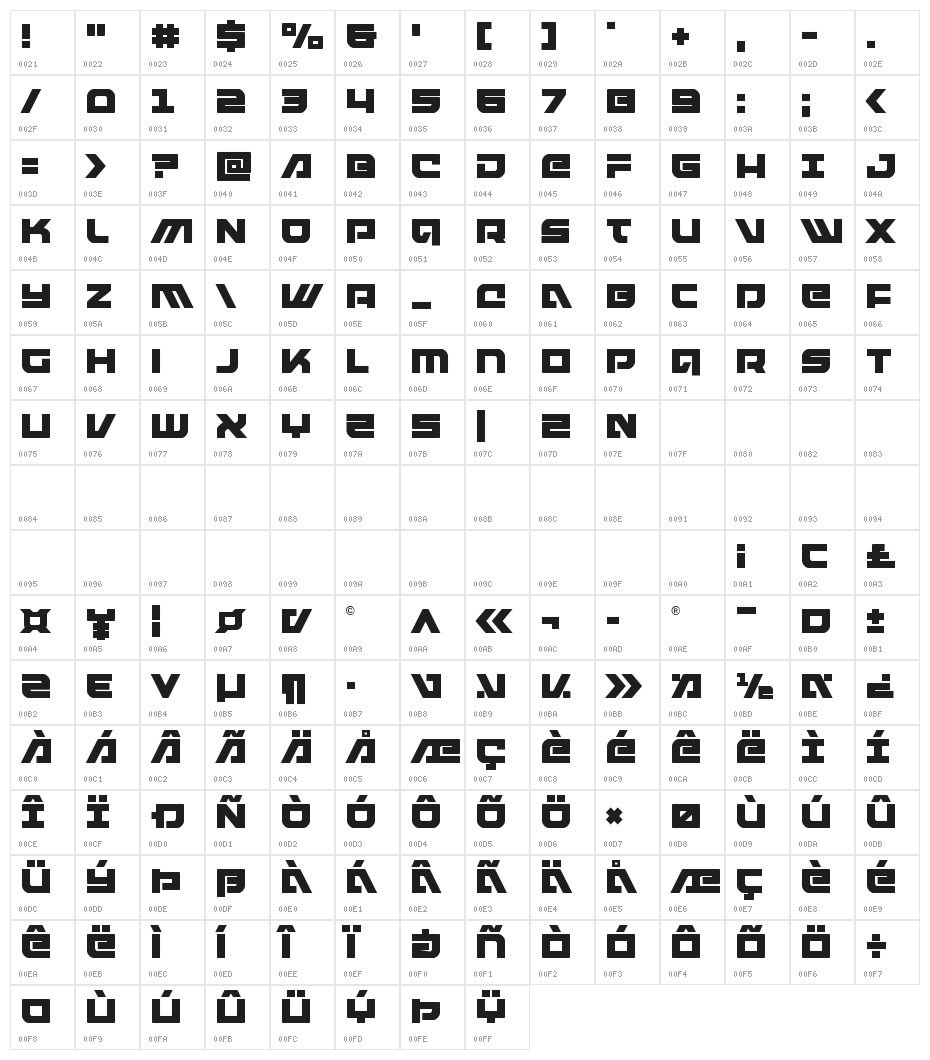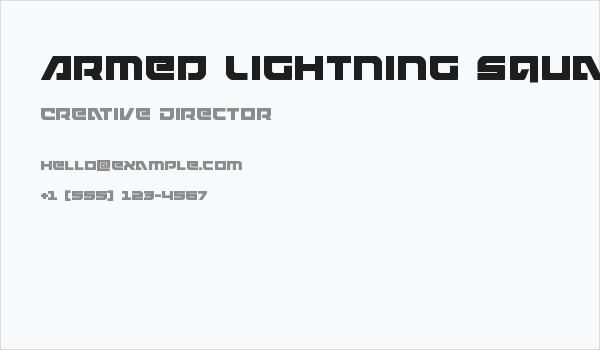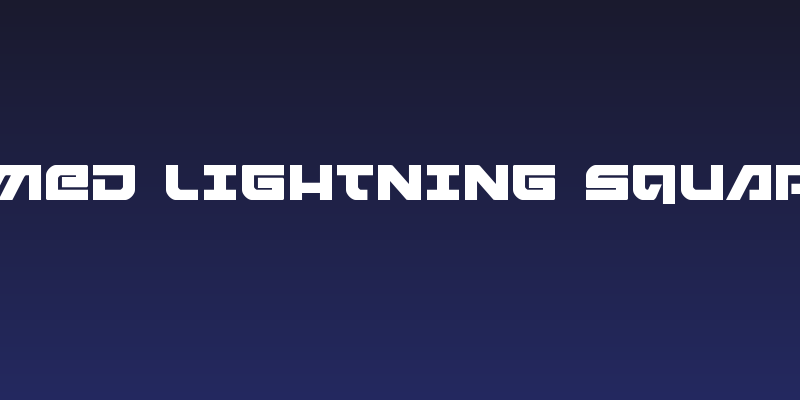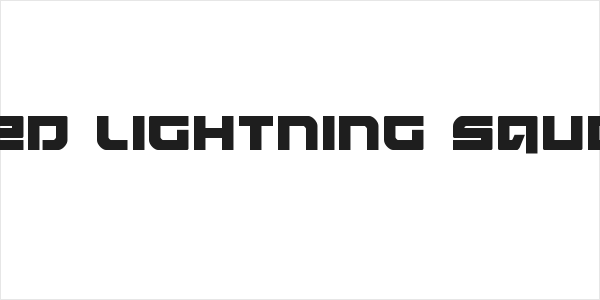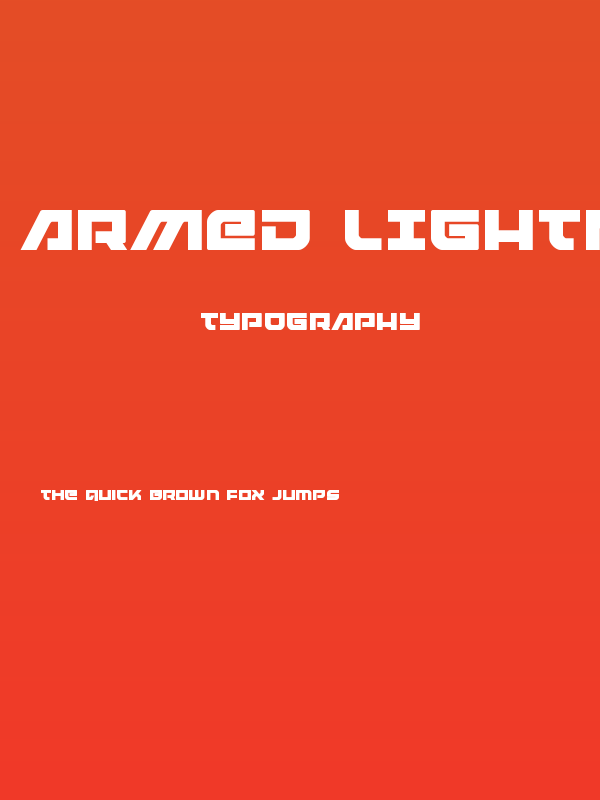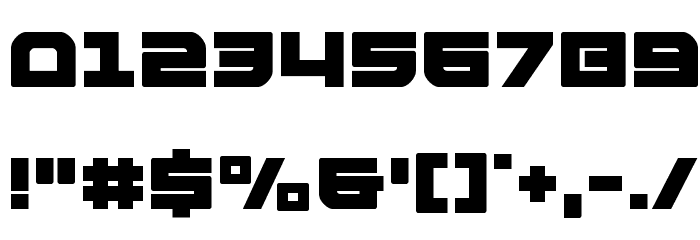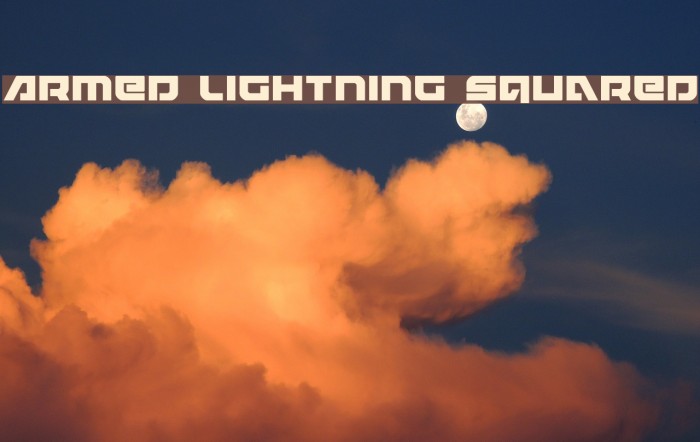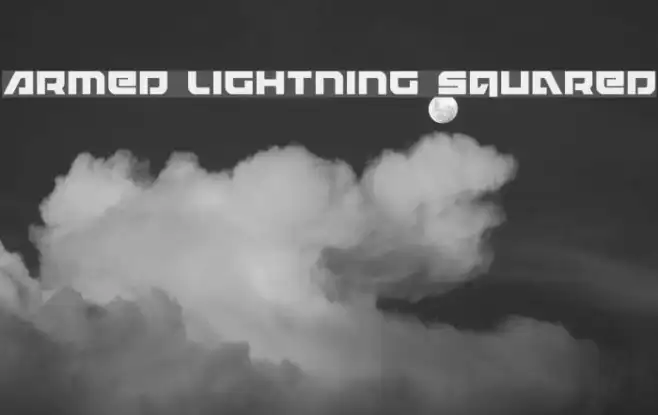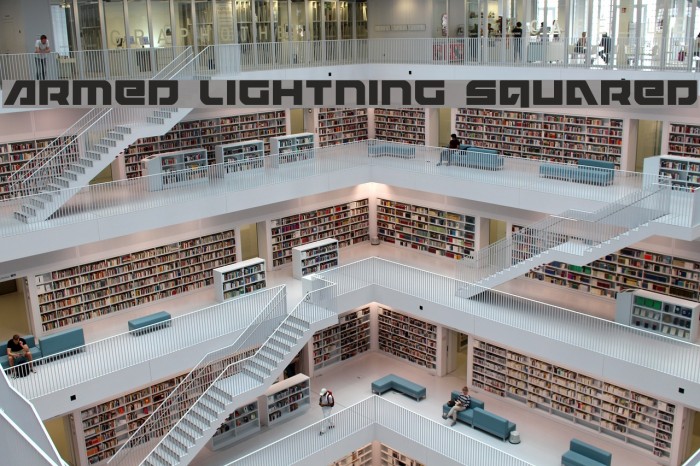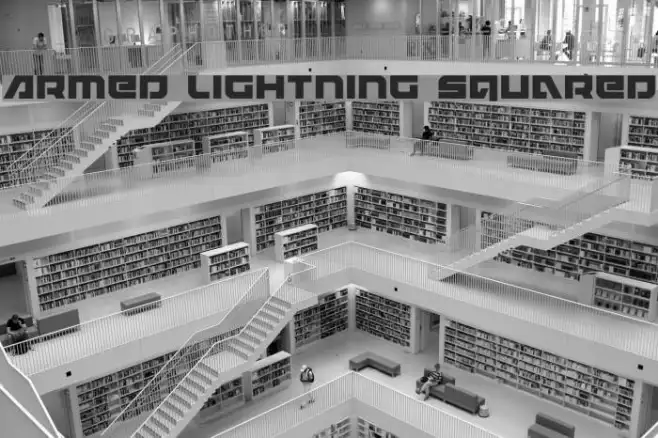
Armed Lightning Squared Font
Armed Lightning Squared Description
This font features a bold, geometric design with sharp angles and a futuristic aesthetic. The characters are constructed with a blocky, squared-off style, giving them a strong and commanding presence. The uppercase letters are particularly striking, with a consistent height and width that creates a uniform appearance. The lowercase letters maintain the same boldness, ensuring readability while preserving the font's unique style. The numerals and special characters are equally bold and angular, fitting seamlessly with the overall design. This font is ideal for projects that require a modern, edgy look.
| Proposed Projects | Ideal for technology branding, video game titles, sci-fi posters, and modern logos. |